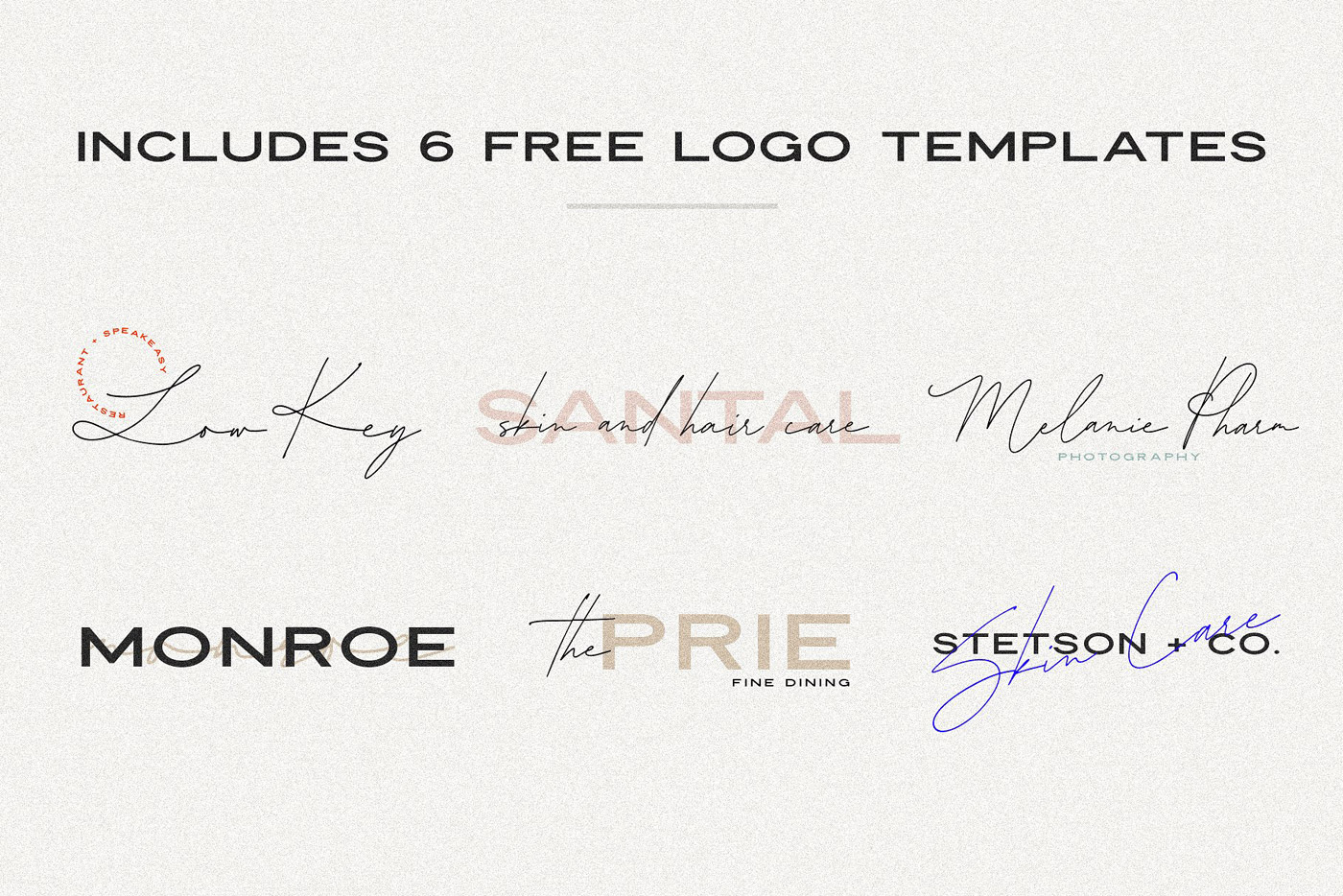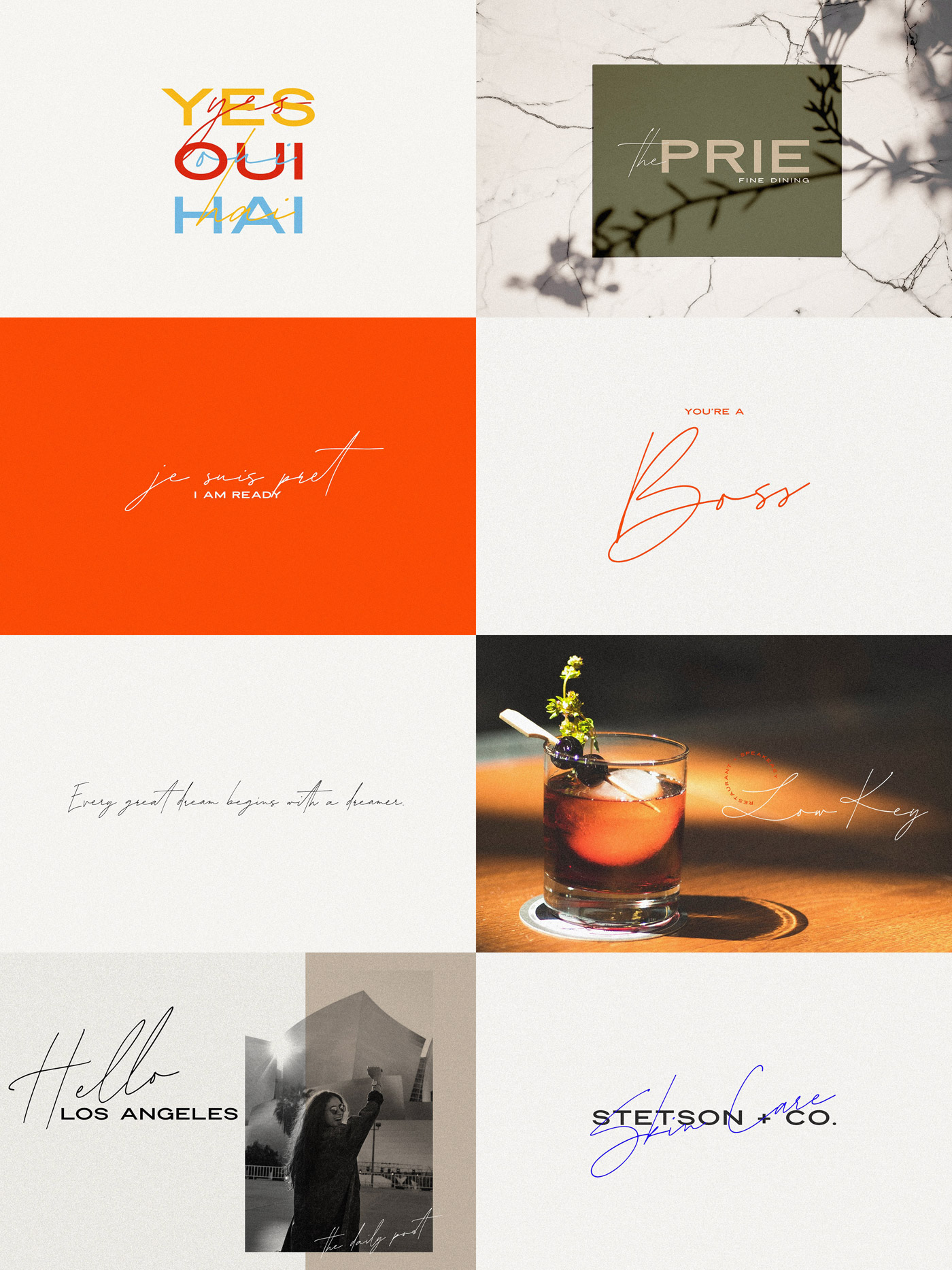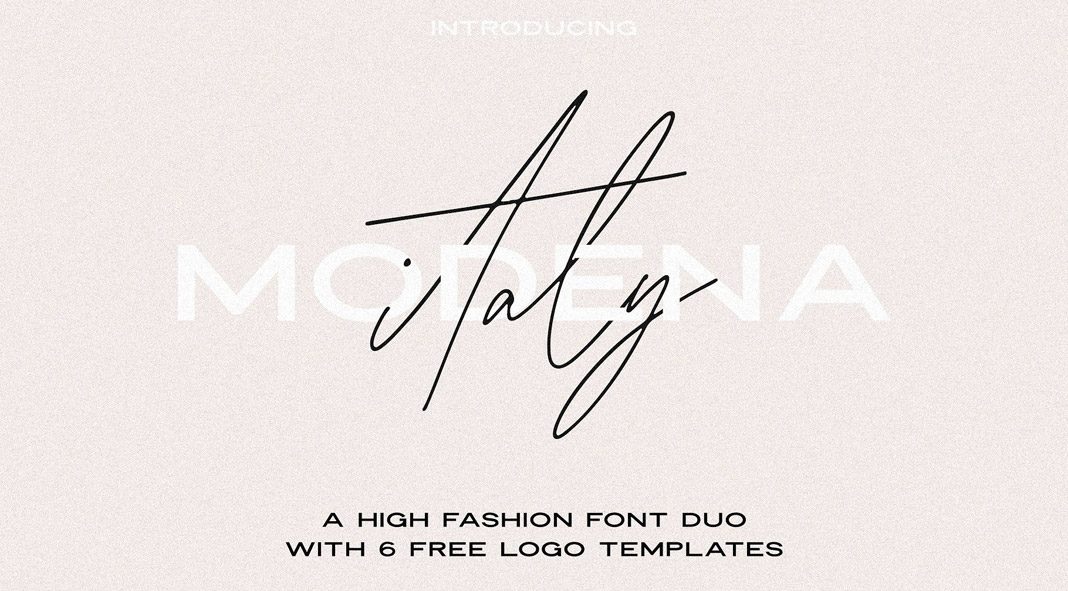
Modena, a font duo that comes with 6 free logos.
Designed by Jen Wagner, Modena is a new font duo consisting of a sturdy, all-caps sans version as well as a hand-drawn script style. You can use them separately or together to create eye-catching logos, posters, invitations, social media content, blog posts, and so much more. Using Photoshop’s layer masks, you can create stylish effects like the script is running through the lines of the sans serif. The script version also includes 50 ligatures and alternates for each letter to give your typographic work an even more natural touch. The fonts come with 6 free logo templates. They are fully editable! Please read more below or click on the following link to purchase the font duo.
Here you can find some of the main features of the Modena font duo.
- Upper and lowercase letters with alternates
- Over 50 ligatures included